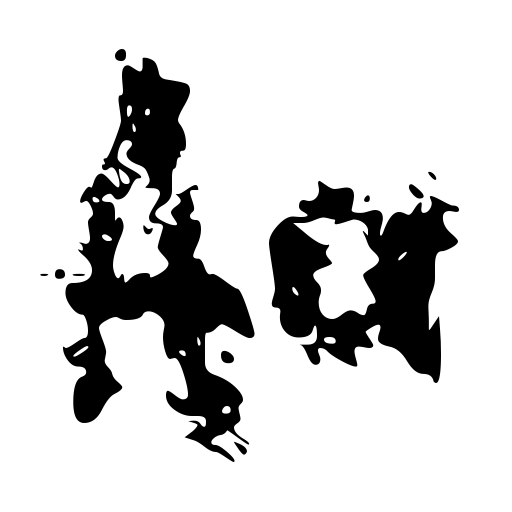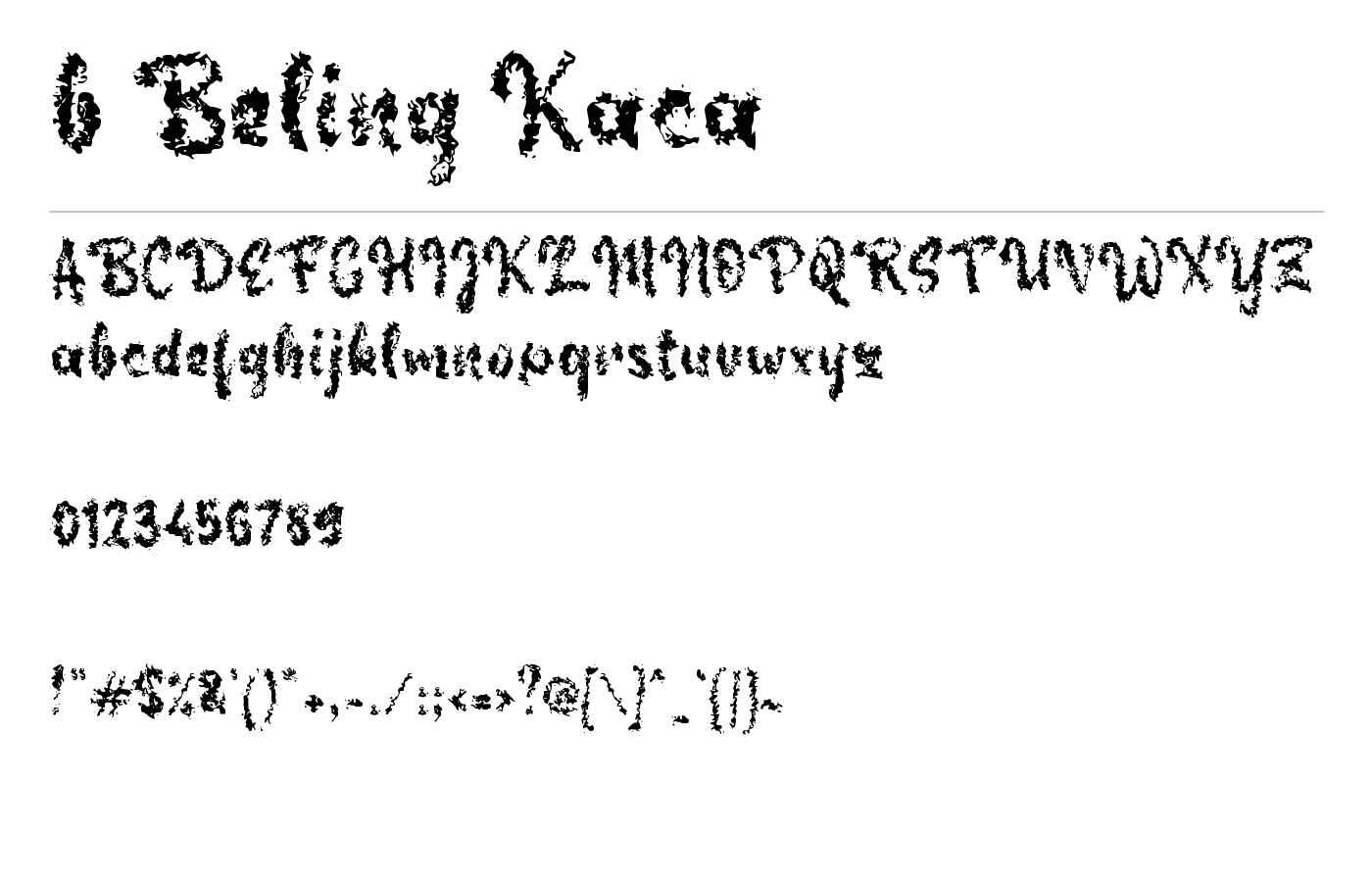
b Beling Kaca is a highly decorative display font with a textured, distressed look that gives it an organic, almost shattered glass effect. Its irregular shapes and rough edges create a bold, edgy personality suited for eye-catching titles or artistic branding where a dramatic, unconventional style is desired. This font works best in creative projects or posters where a unique, gritty aesthetic is needed to stand out.
b Beling Kaca Font
About b Beling Kaca Font